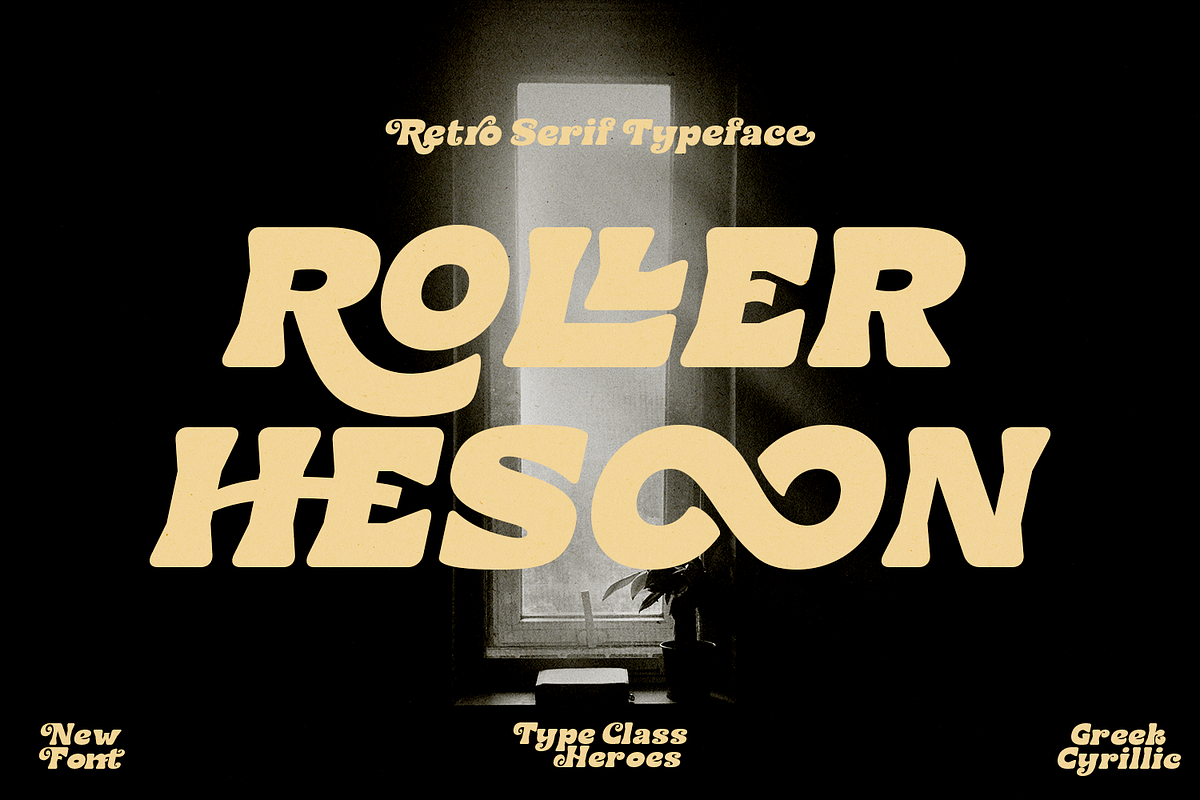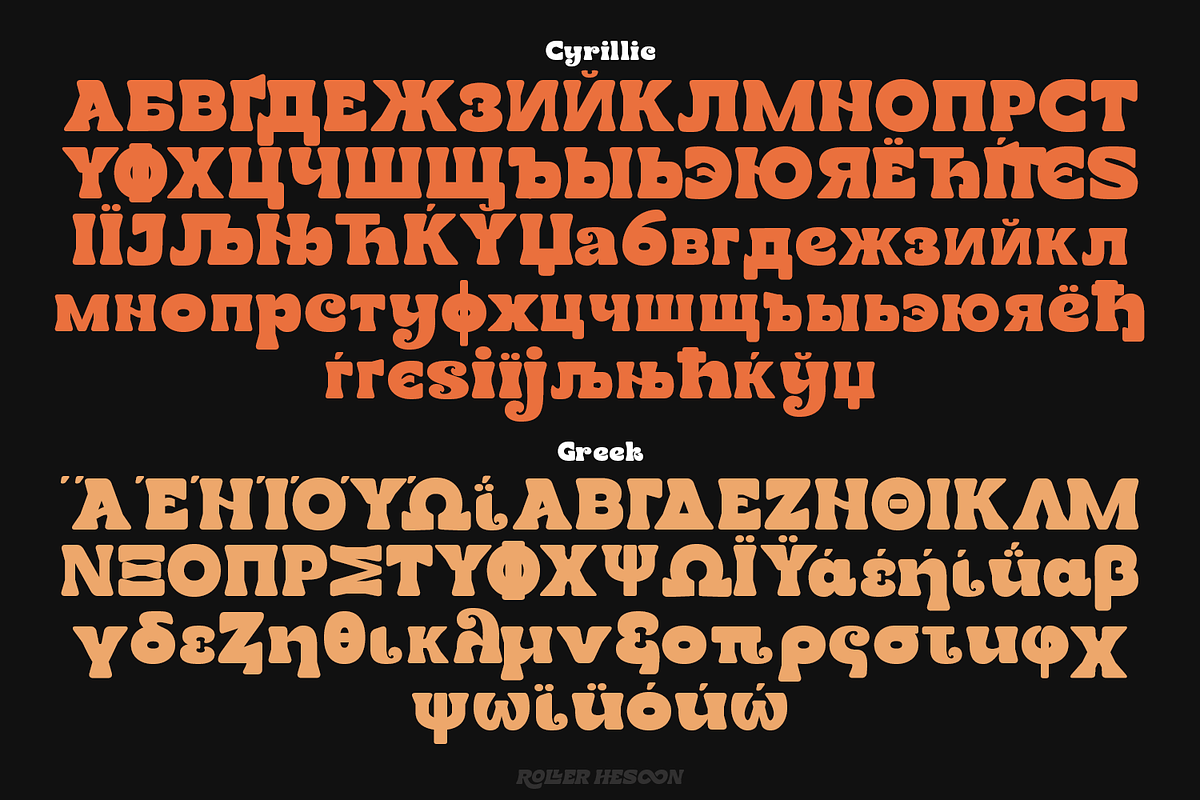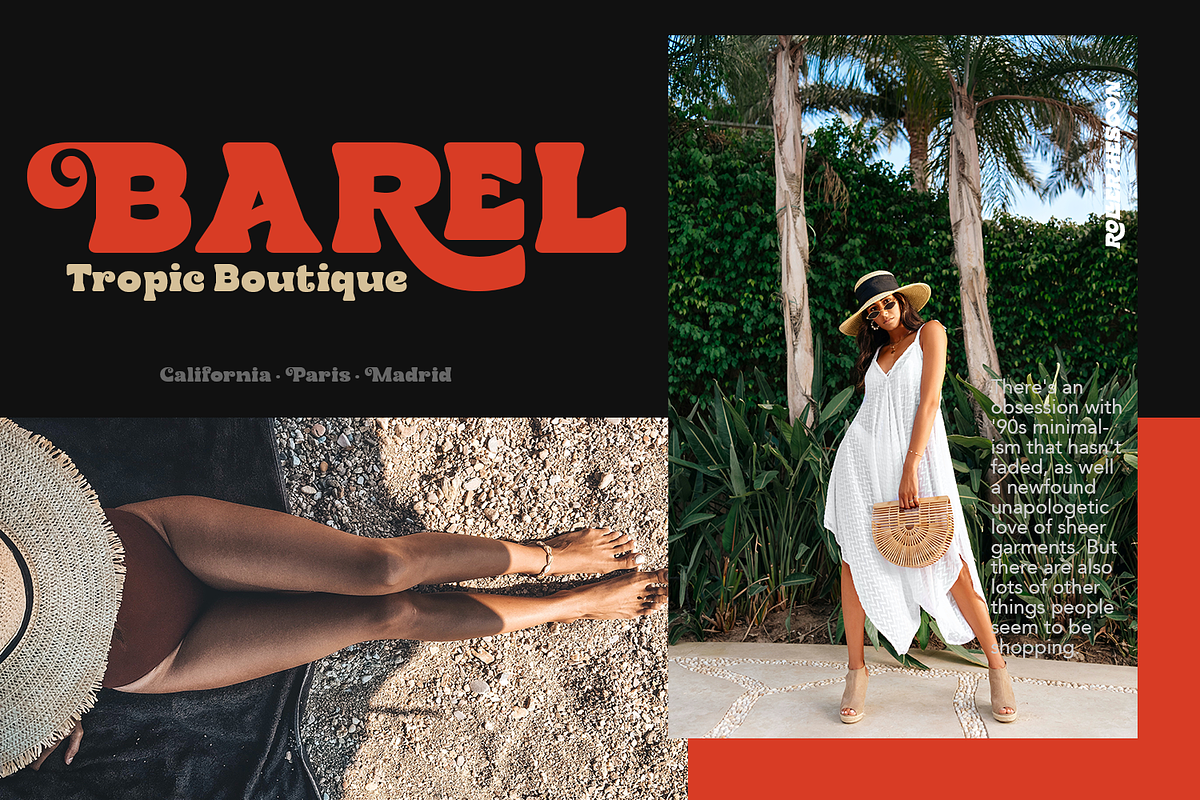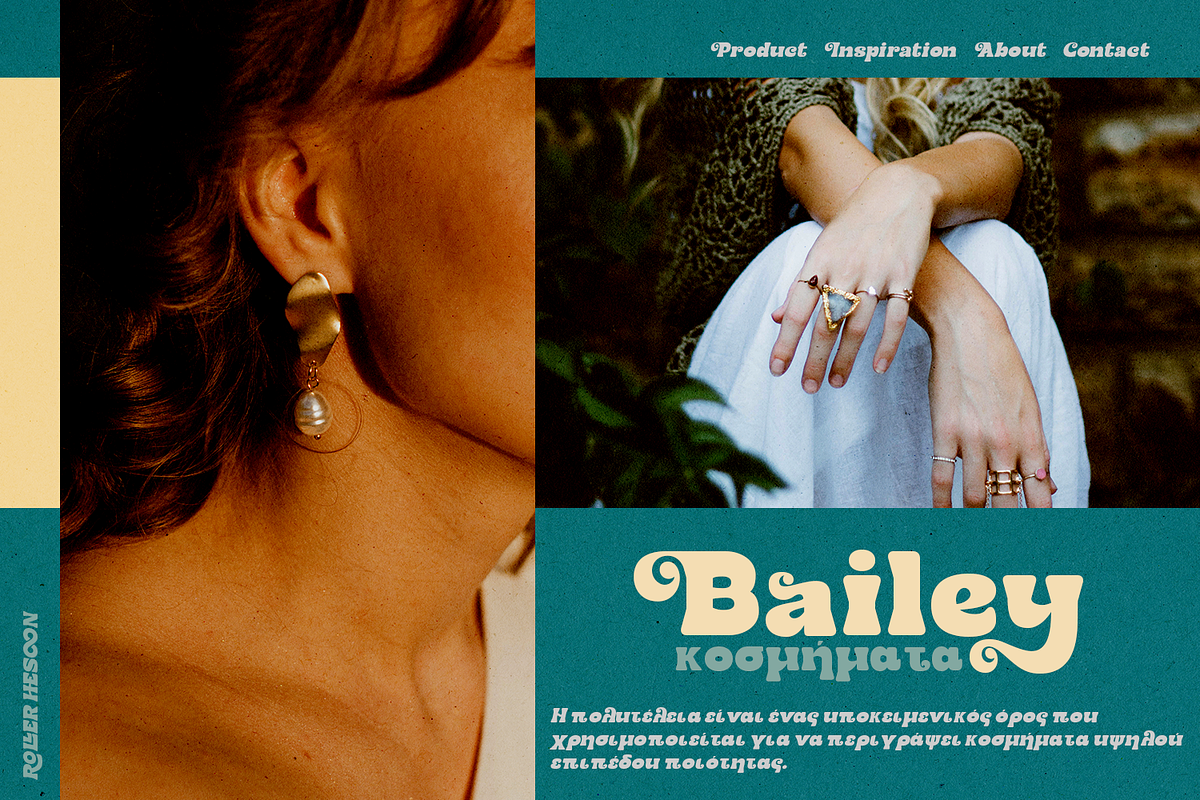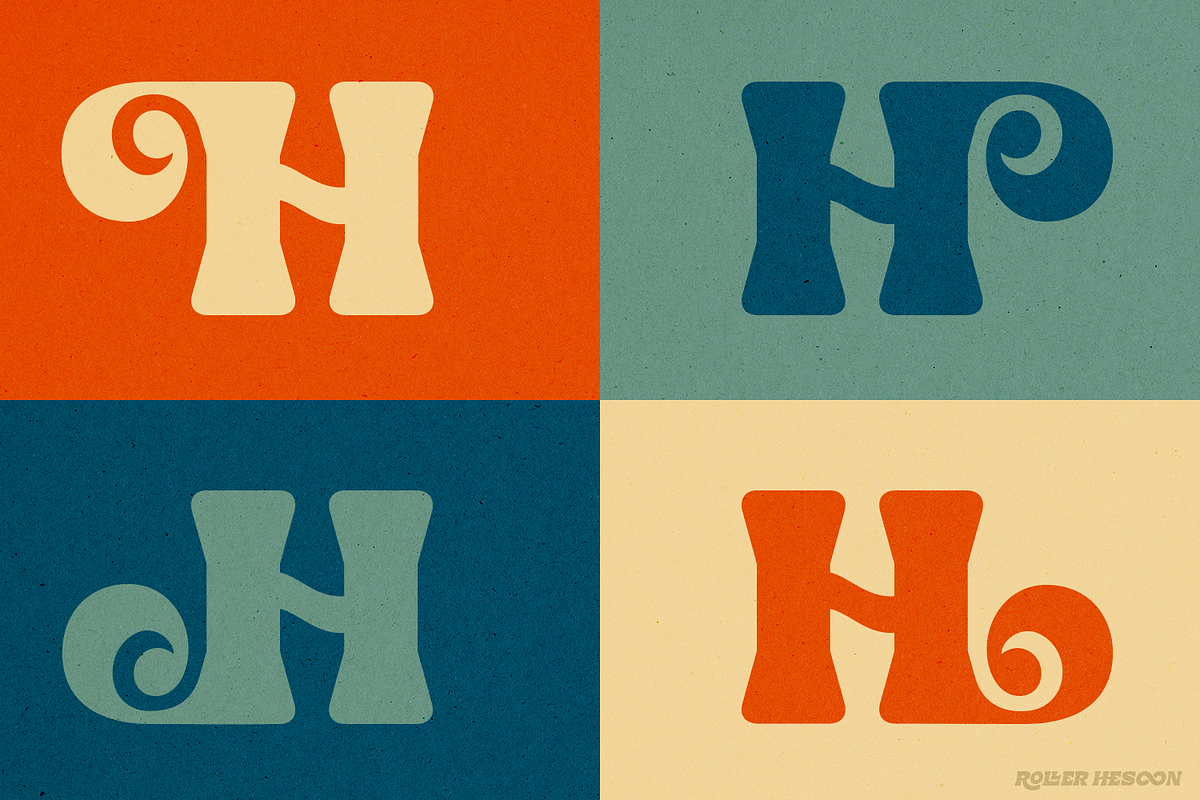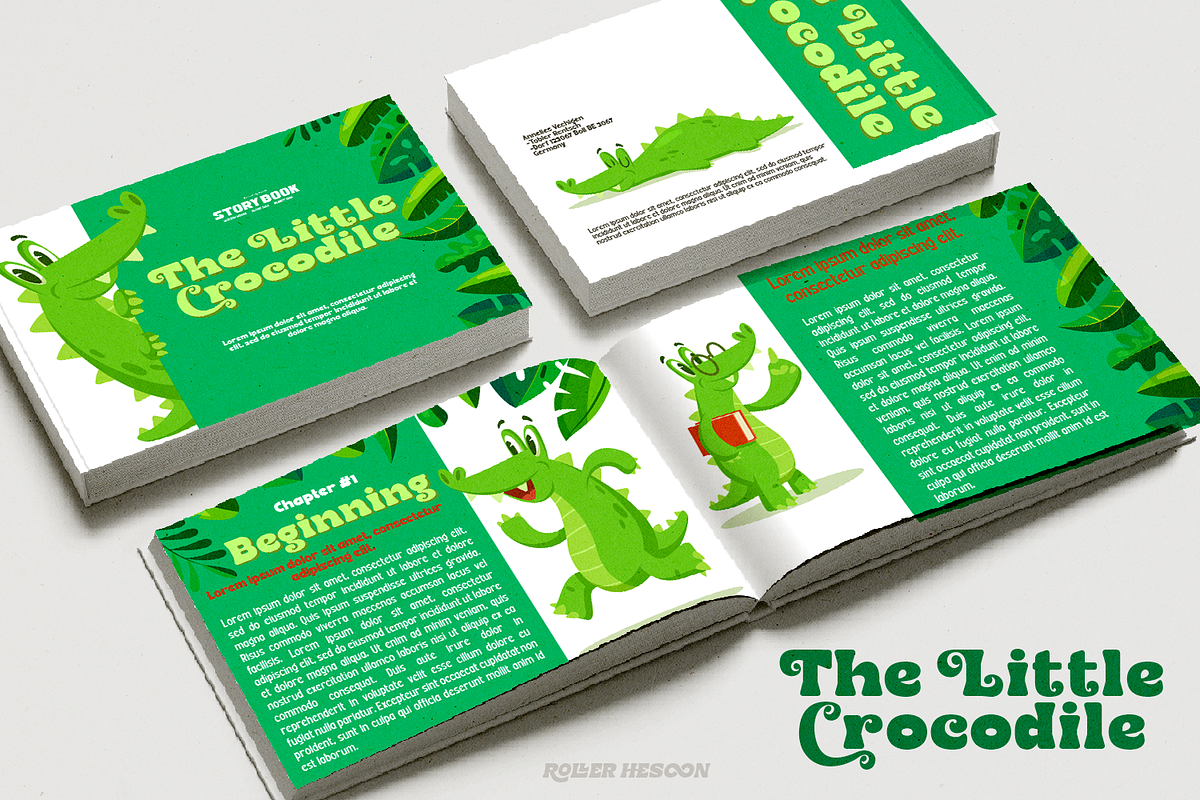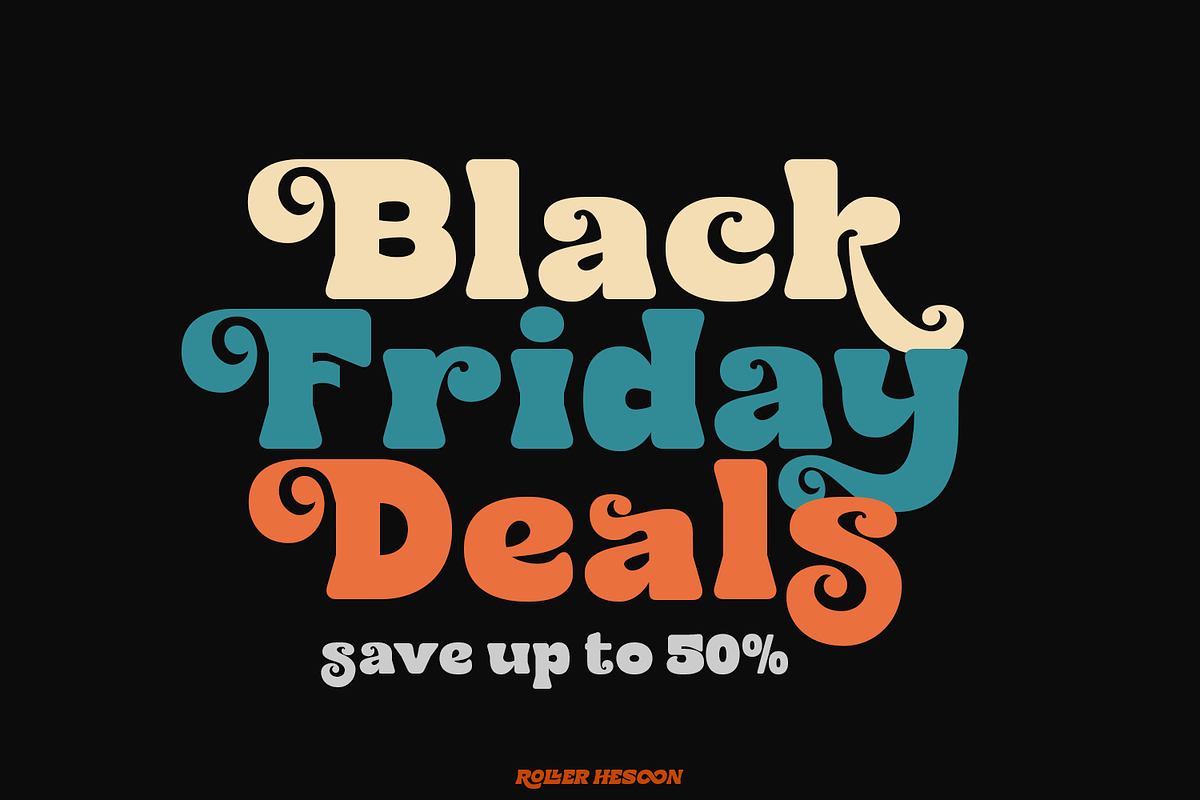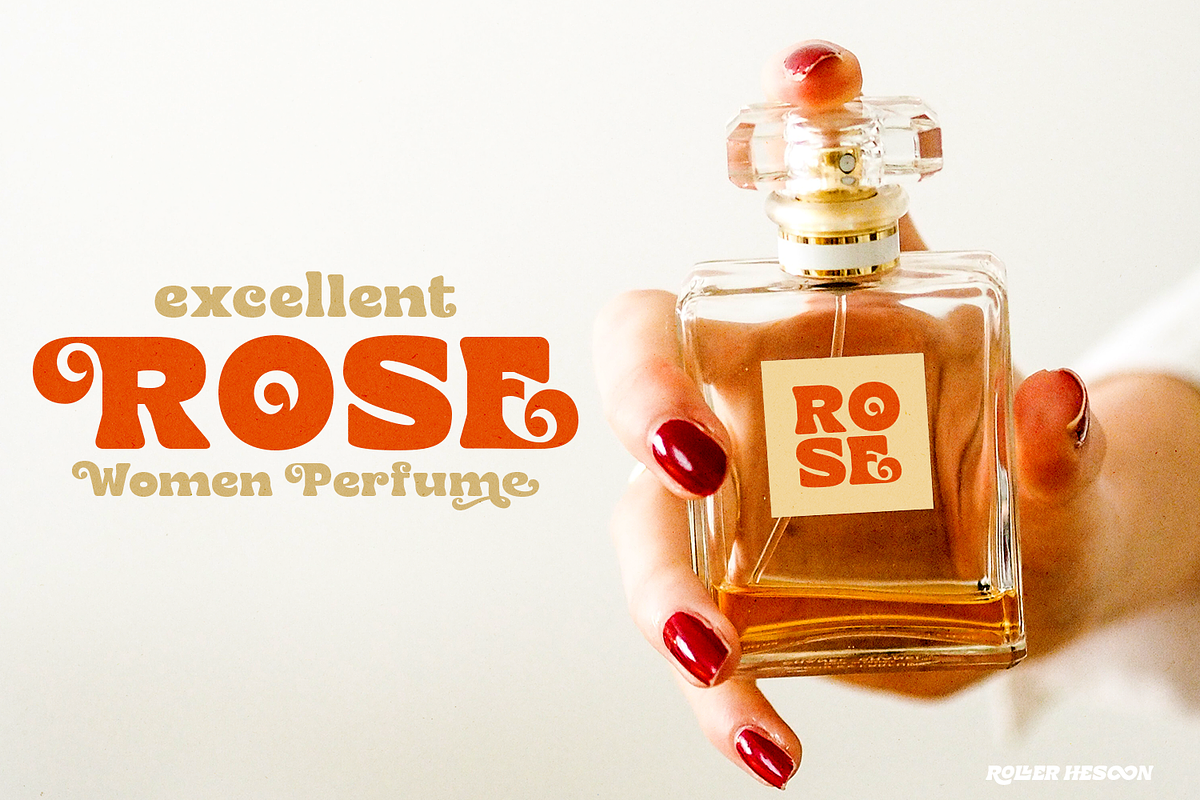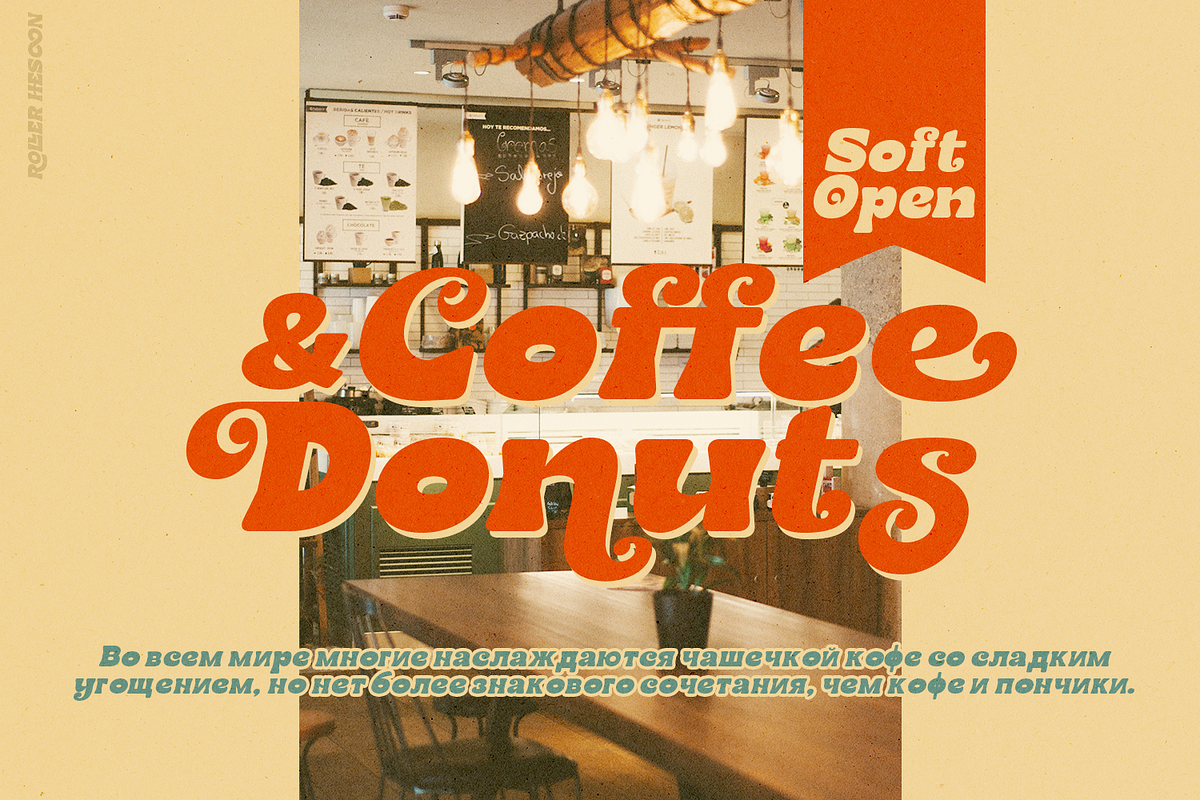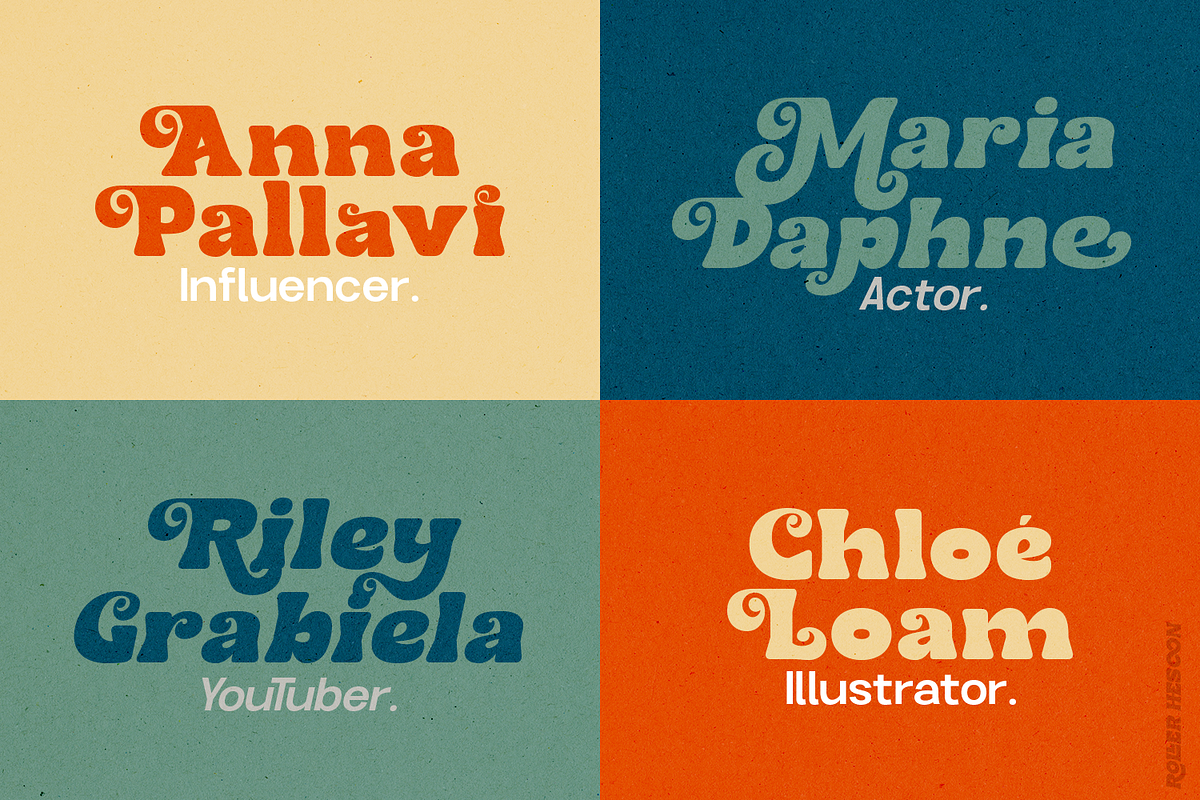
Roller Hesoon - Retro Font
Retro and refined you can explore and combine creating rhythm for comfortable reading. Roller Hesoon supports more than 100 Latin-based languages and has extensive Cyrillic and Greek support for languages like Russian, Bulgarian, Ukrainian, and many more.
- International Glyphs
- Cyrillic & Greek